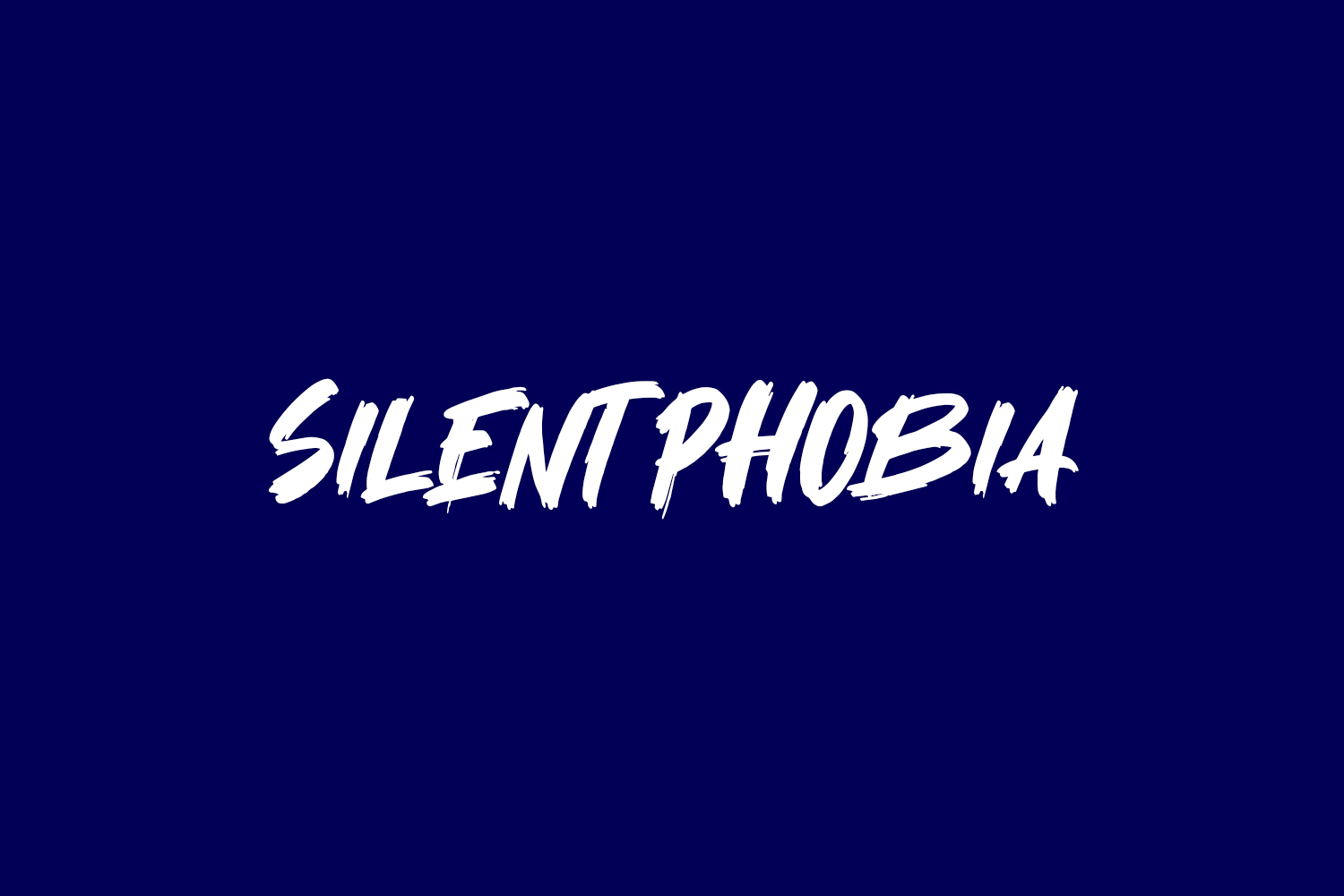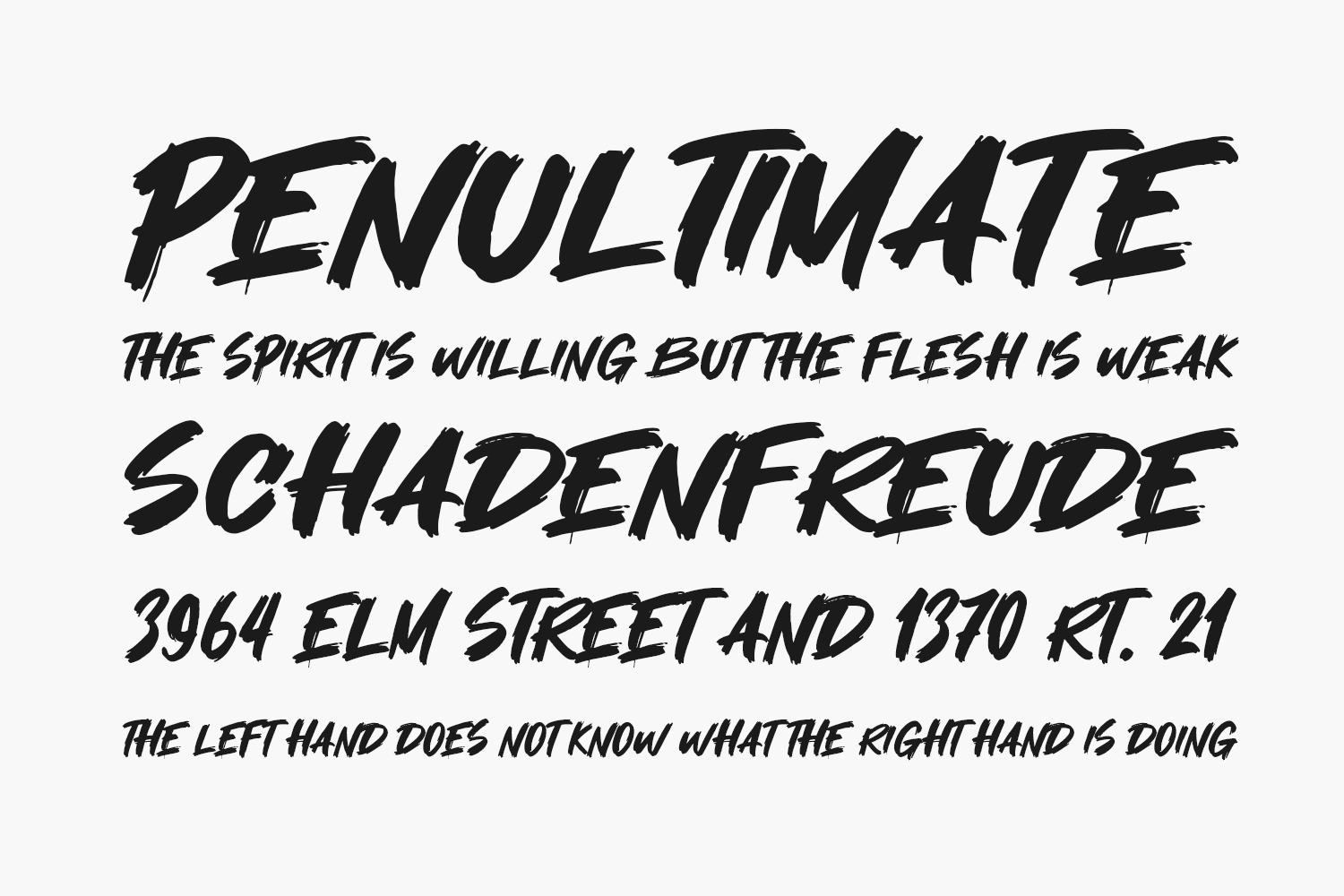
Introducing Silent Phobia Free Font – an exceptional and captivating handcrafted font, perfect for elevating your designs. Interestingly, this font lends itself beautifully to projects imbued with horror and Halloween themes. Its versatility is evident in its seamless integration across a vast array of creative endeavors. Incorporate The Silent Phobia into your imaginative concepts and witness the remarkable enhancement it brings to the forefront. Silent Phobia Free Font is free for personal use only. Please purchase the full version for commercial use.